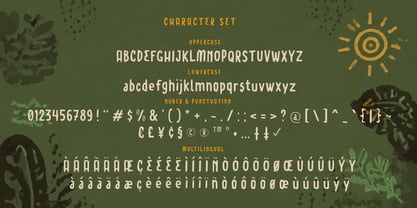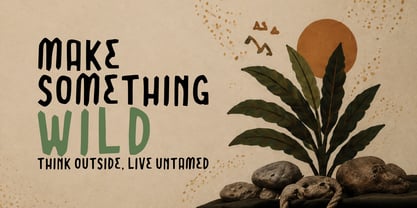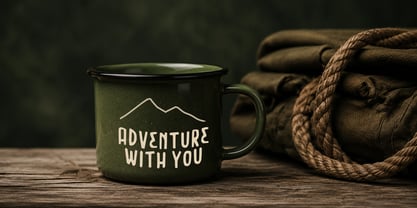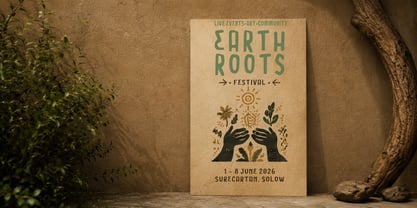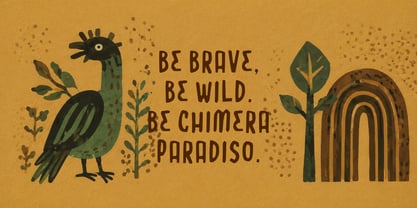
Chimera Paradiso – Vintage Handwritten Display Font
Chimera Paradiso is a unique vintage handwritten display font inspired by organic lettering, retro signage, and handcrafted artistic typography. With its imperfect strokes, natural curves, and expressive letterforms, this font delivers an authentic handmade feel that instantly adds warmth and personality to any design project.
Designed with a strong vintage soul and playful handcrafted character, Chimera Paradiso combines bold readability with artistic irregularity, making it ideal for eye-catching headlines and creative branding. Its tall proportions and organic shapes create a nostalgic aesthetic reminiscent of old handmade posters, artisan packaging, folk art, and retro print design.
Whether you are creating branding projects, logo designs, apparel graphics, packaging, posters, book covers, social media content, editorial layouts, café menus, music artwork, or vintage-inspired merchandise, Chimera Paradiso brings a timeless handcrafted atmosphere that feels both rustic and modern.
The font is carefully crafted to maintain readability while preserving its raw handmade charm. Every character carries subtle imperfections that make your typography feel natural, expressive, and full of life.
Features :
✔ Regular Style
✔ Oblique Style
✔ Bold Regular Style
✔ Bold Oblique Style
✔ Uppercase & Lowercase Characters
✔ Numbers & Punctuation
✔ Multilingual Support
✔ Vintage Handwritten Style
✔ Organic & Handcrafted Letterforms
✔ Perfect for Branding, Posters, Packaging, Apparel & Editorial Design
Chimera Paradiso is the perfect choice for designers looking for a vintage handwritten font with artistic energy, handcrafted authenticity, and strong visual character.